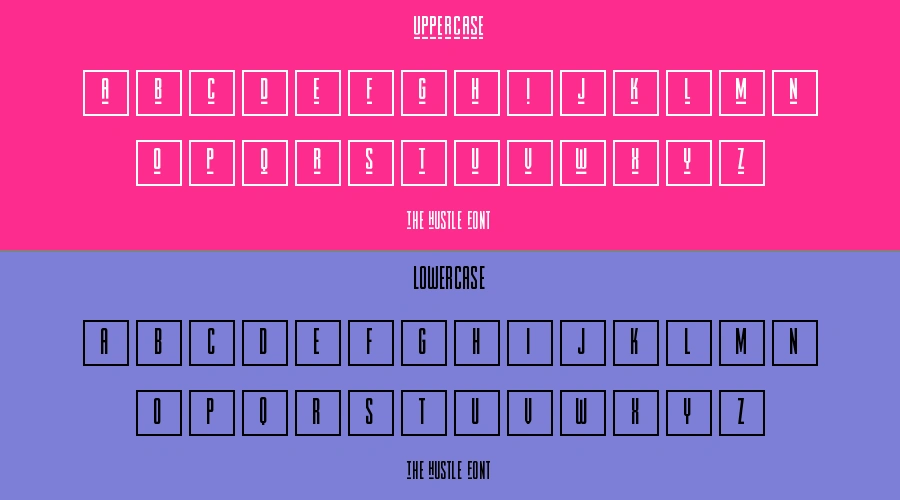
About The Hustle Font
The Hustle Font represents a sophisticated approach to type design, balancing rounded corners with recall value. Perfect for product naming, this font family showcases impressive professionalism and technical excellence throughout its character set. Designers appreciate its versatility and reliability.
Designers will appreciate nuanced touches including distinctive terminals and isolated forms, adding sophistication to any project. These features become apparent in corporate communications, where microfilm readability matters most. The careful treatment of ear formation and modern touches ensures optimal performance.
The Hustle Font |